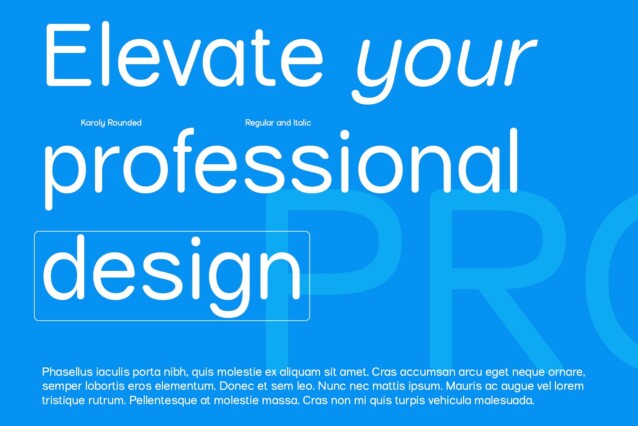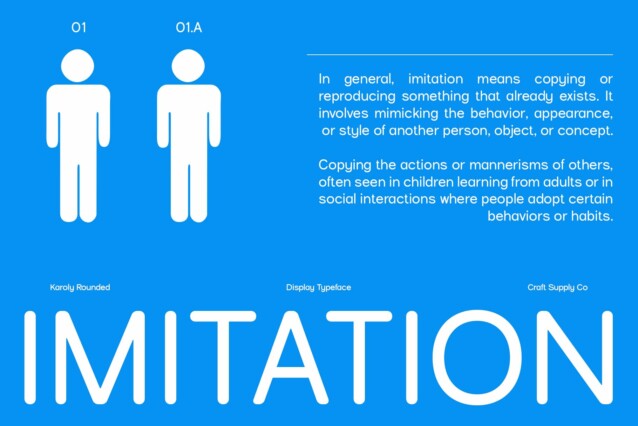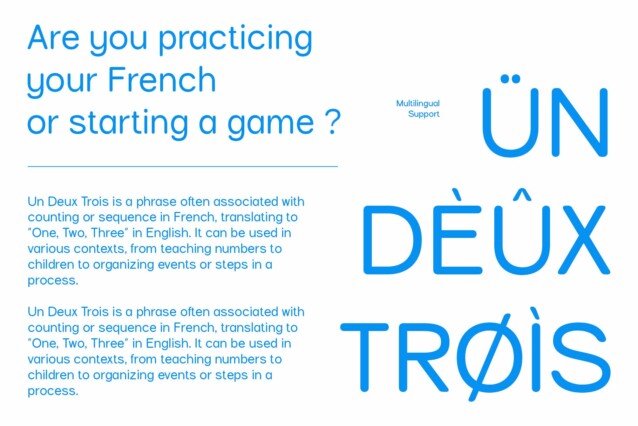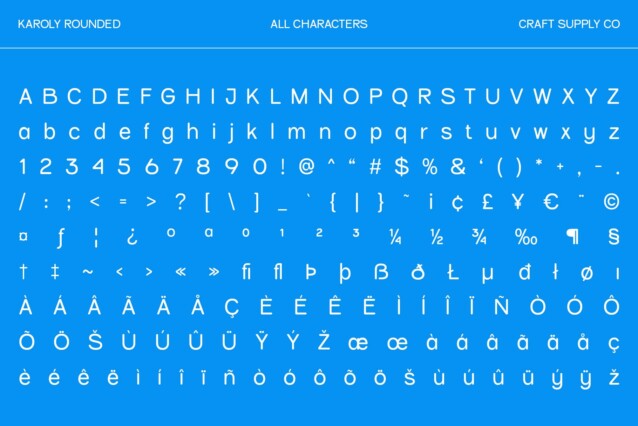
Karoly Rounded Font
Karoly Rounded Font is a modern sans-serif font that offers a distinctive blend of clean design and soft, curved edges. Its rounded shapes provide a friendly and approachable appearance while maintaining a high level of simplicity and readability.